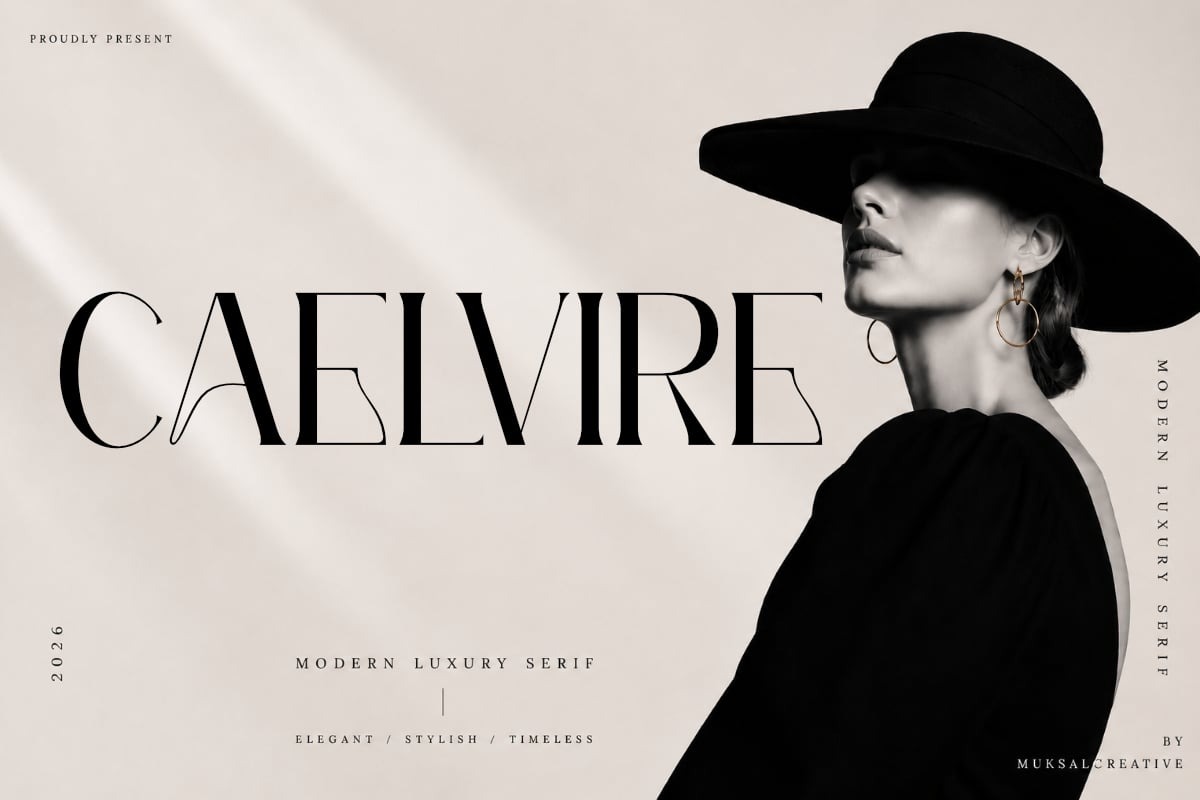
Caelvire Font
CAELVIRE Font is a professionally designed typeface that delivers clarity, structure, and consistent performance across various design applications. CAELVIRE is a modern luxury serif typeface designed to bring elegance, sophistication, and timeless beauty into your creative projects. Inspired by high-fashion editorials, luxury branding, and contemporary couture aesthetics, this typeface combines graceful high-contrast letterforms with refined artistic details to create a truly premium visual experience.
With its delicate curves, stylish alternates, and elegant proportions, CAELVIRE delivers a perfect balance between modern minimalism and classic sophistication. Every character is carefully crafted to create a fashionable editorial look that feels luxurious, expressive, and effortlessly stylish.
Perfect for branding, fashion campaigns, magazine layouts, beauty packaging, logos, invitations, social media, and luxury visual identities, CAELVIRE helps your designs stand out with a refined and upscale personality.
Whether you’re creating a luxury logo, elegant packaging, editorial headlines, or modern branding projects, CAELVIRE offers a timeless typographic style that feels both contemporary and iconic.